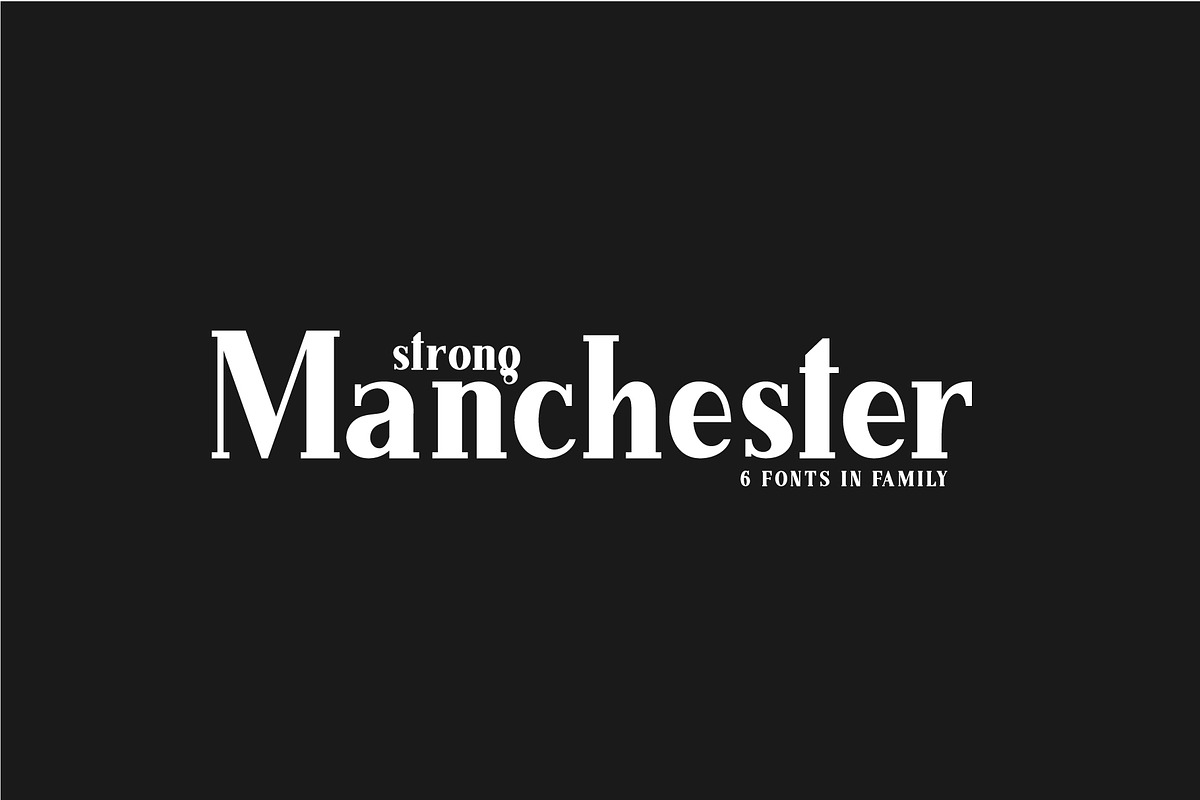
Manchester. Serif family
Manchester. Serif family.
Classical rigor, adjusted proportions and confident serifs are the main advantages of the Manchester font. This unfading classic in all its inherent beauty. In the font, male-style notes predominate. Use it for the editorial office, glossy magazines and articles. Font will give to brands and logos of reliability, and use in the text will help add a sense of high cost.
- 6 fonts in family
- UPPERCASE and lowercase letters
- Numbers & basic Punctuation
- Serif Typeface
- Regular and Italic font style
- Bold and Bold italic font style
- Light and Light italic font style
- Classical Severity